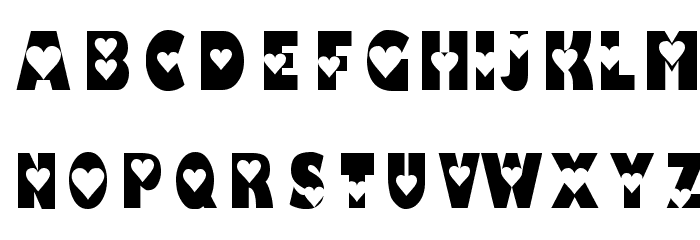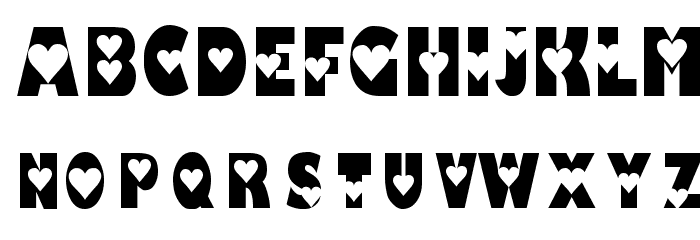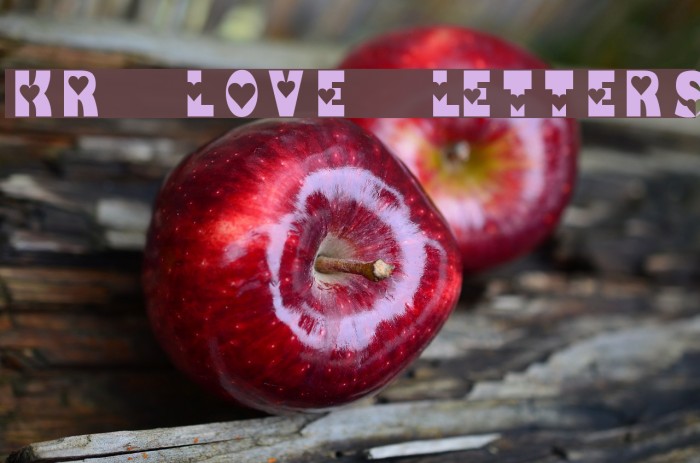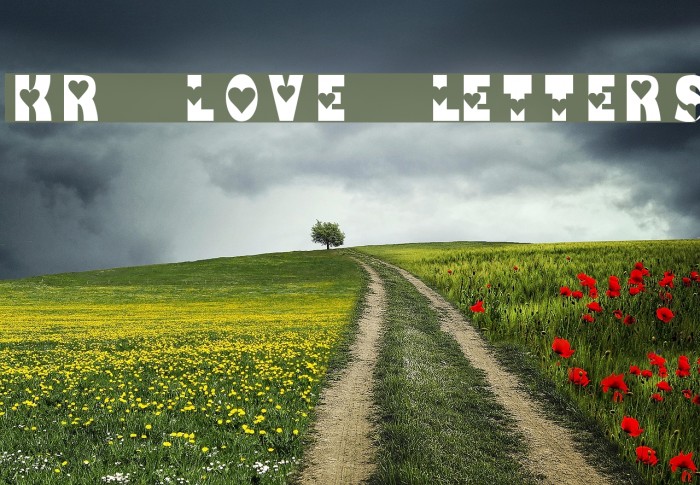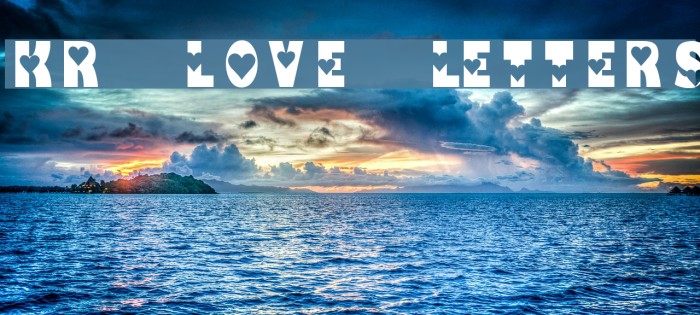
KR Love Letters Font
This font features a playful and romantic design, incorporating heart shapes into the structure of each letter. The bold, geometric forms are punctuated by the heart motifs, creating a unique and eye-catching appearance. The uppercase and lowercase letters maintain a consistent style, with the heart elements adding a whimsical touch. The font's bold weight and high contrast make it stand out, while the decorative elements suggest a sense of fun and affection. It's ideal for projects that aim to convey love, joy, or celebration.
A bold, heart-themed decorative font with playful and romantic elements.
- Proposed Projects: Perfect for Valentine's Day cards, wedding invitations, romantic posters, and playful branding projects.